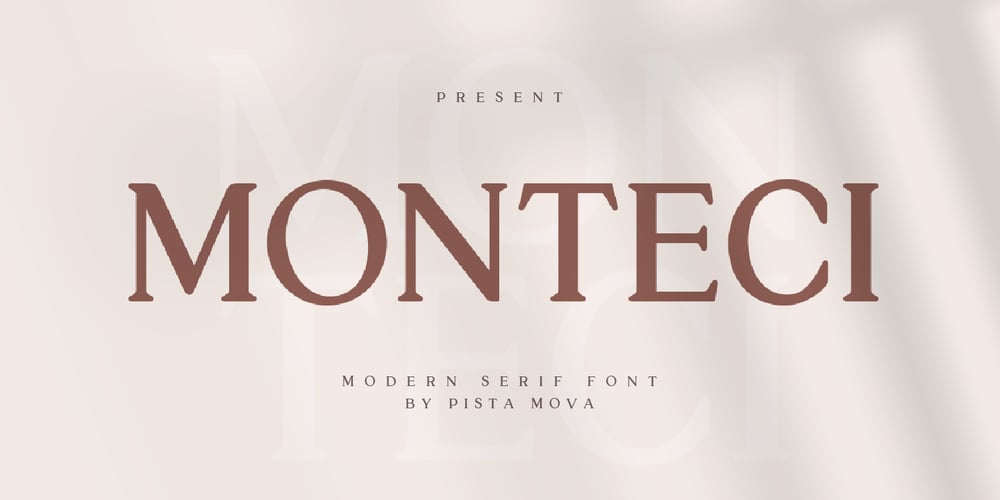
Monteci Font Family was designed by Haikal Juanda and published by Pista Mova. Monteci contains 1 styles and family package options. Monteci is a modern display serif font. Minimalist and classic typefaces are suitable for logos, quotes, branding, or editorial designs. Monteci has a unique character by combining geometric shapes with organic curved details. This is a unique typeface for your personality.This font is PUA encoded which means you can access all of the amazing glyphs and ligatures with ease!Feel free to contact us if you have any questions ๐ Thank you!